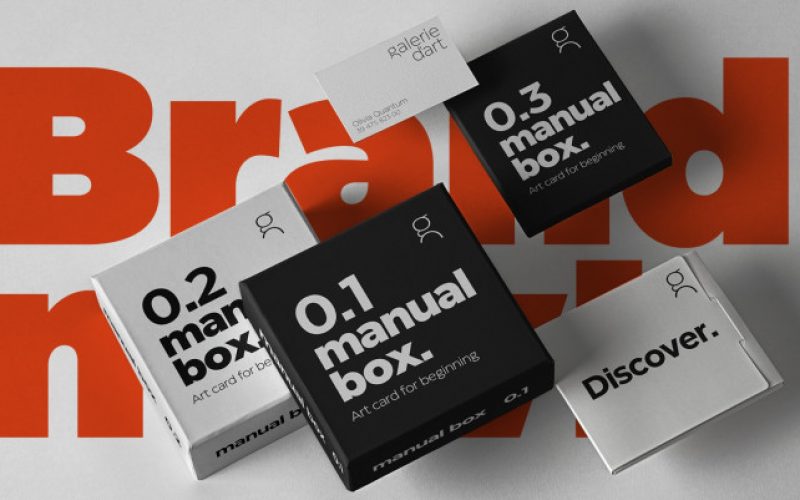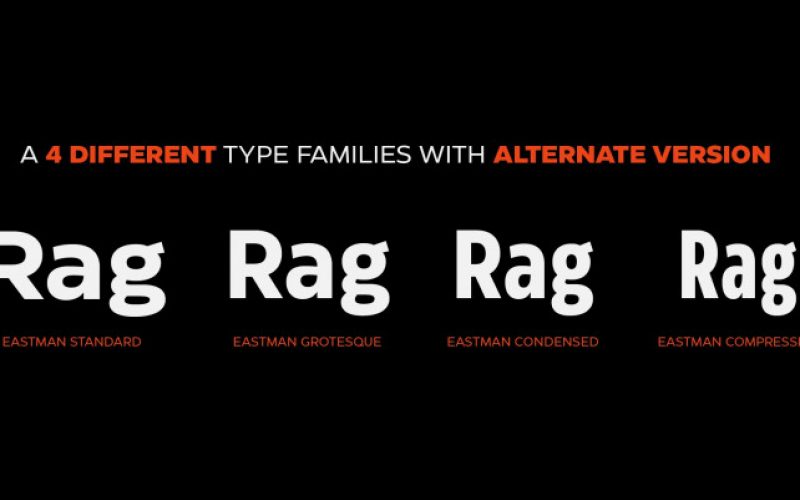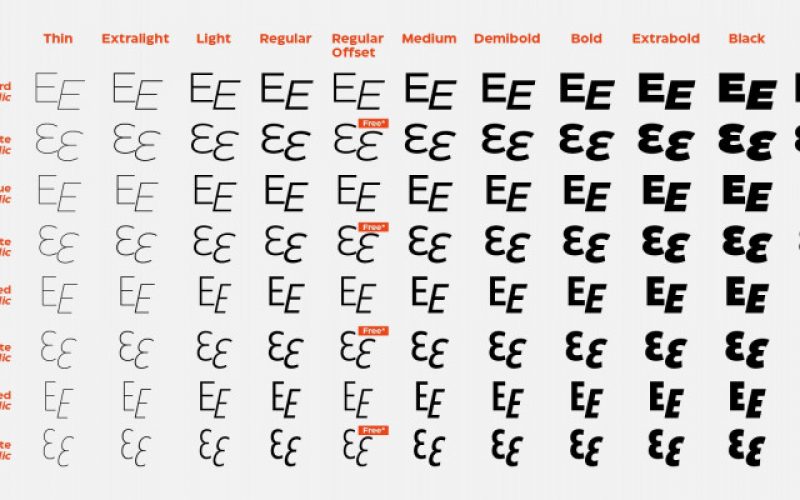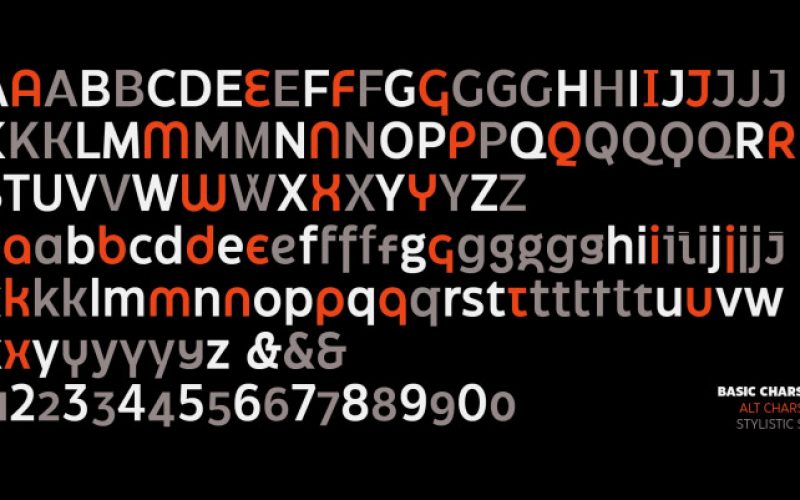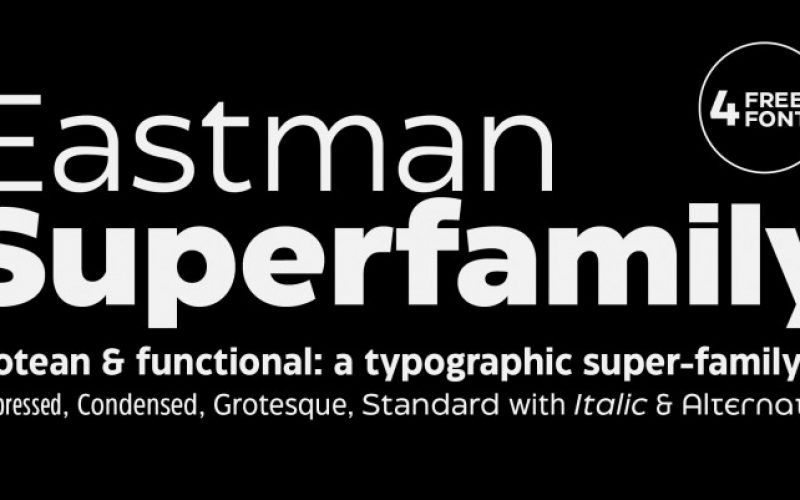
Eastman Grotesque Alt Sans Serif Font
Designed in 2020 for Zetafonts by Francesco Canovaro and Andrea Tartarelli with help from Solenn Bordeau and Cosimo Lorenzo Pancini, the original Eastman typeface family was conceived as a geometric sans workhorse family developed for maximum versatility both in display and text use. The original wide weight range has been complemented with three more additional widths, to give you maximum control over the appearance of text in your page. While Eastman Compressed and Eastman Condensed behave as space-saving condensed families, Eastman Grotesque adapts the family design style to humanist proportions. All share a solid monolinear design and a tall x-height that makes body text set in Eastman extremely readable on paper and on the screen.